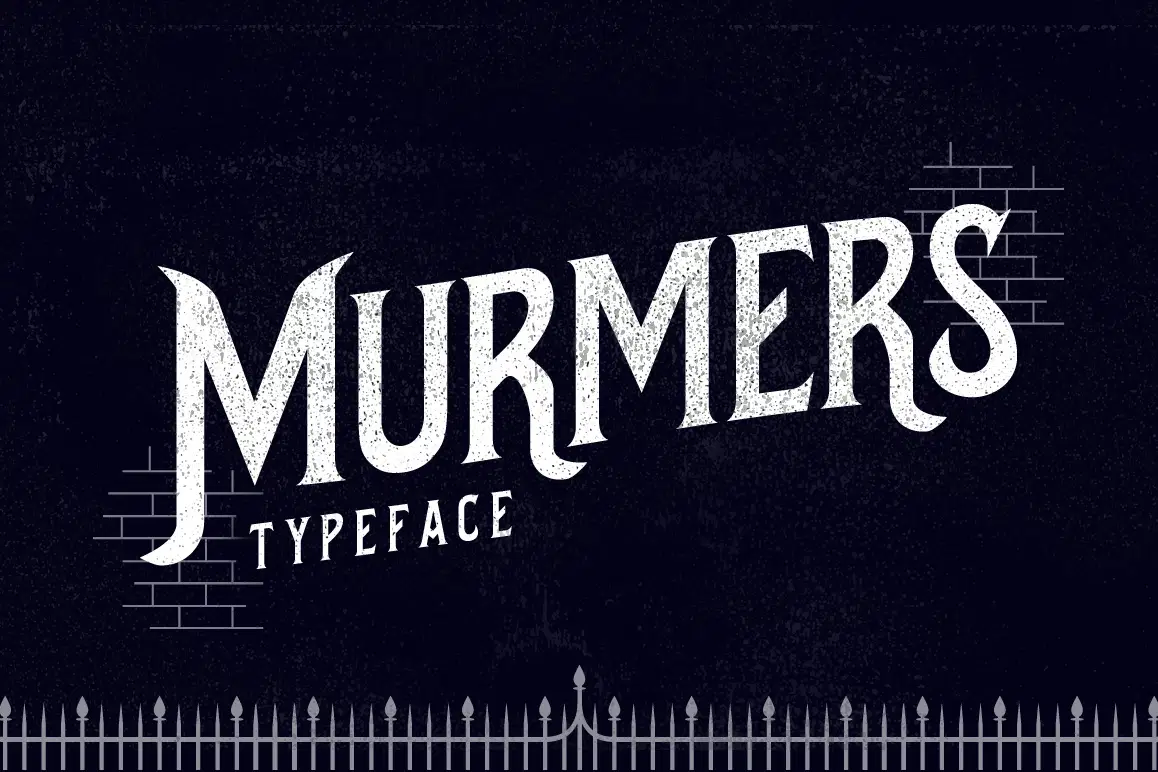
Introducing murmers typeface is a serif font . Murmers typeface inspired by old films about a murder or crime . This is a great for vintage design, t-shirt, logo, labels, posters , badges and etc.